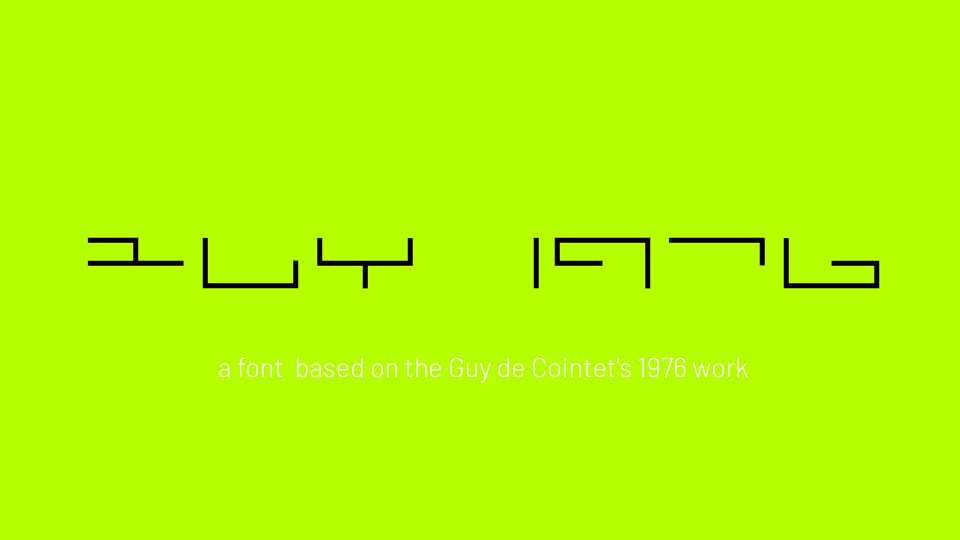
Download Guy 1976 font, a display typeface in one weight based on the Guy de Cointet’s 1976 work “Wind of the…”. The font is perfect for futuristic design, minimalist concept and contemporary artworks.